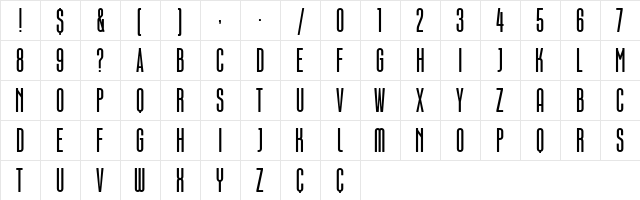
Aurelio Titling Compressed
| Foundry | NowType |
| Designer | Lucas Franco & Claudio Rocha |
Design Context for Aurelio Typeface
Aurelio is a composed and adaptable typeface that performs quietly and consistently across a wide range of design contexts.